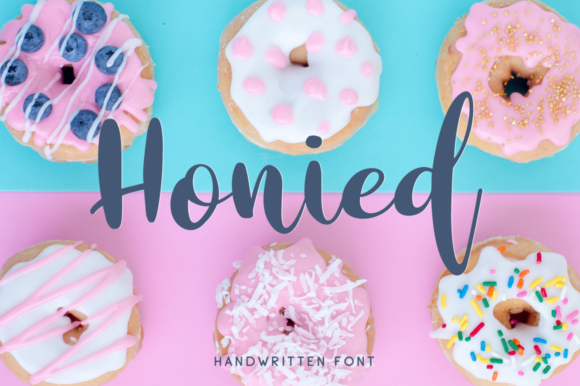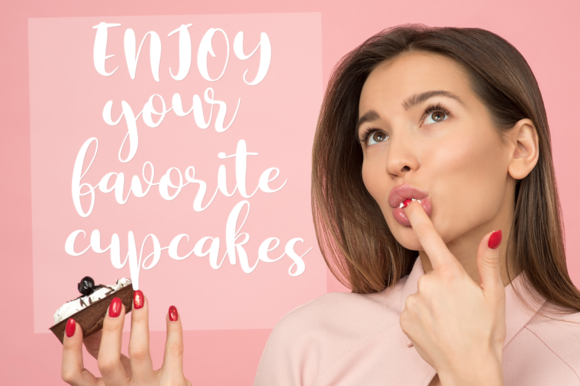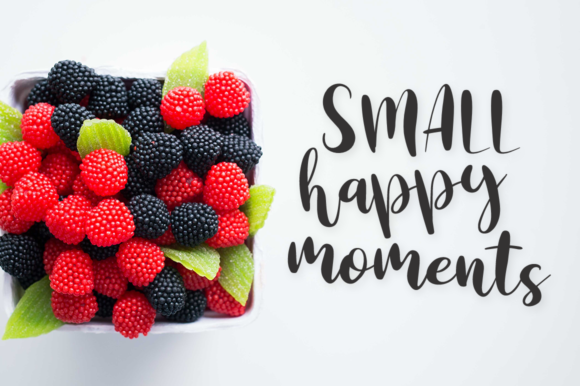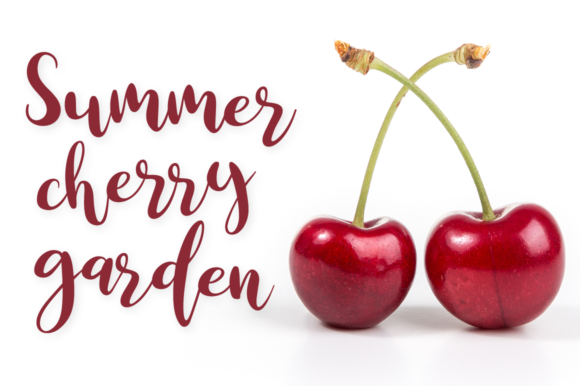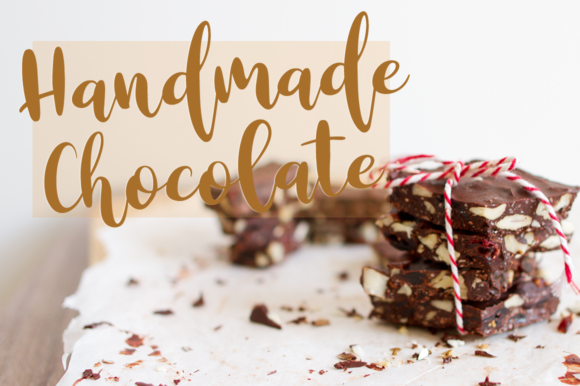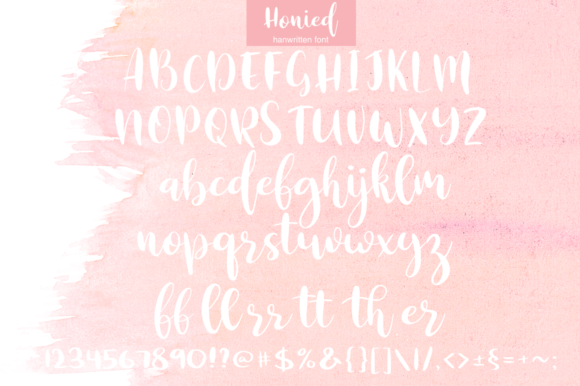
Honied Font
About Honied Font
Honied is a fresh, handmade calligraphy font. It has a bold yet elegant style which makes it perfect for various designing needs.